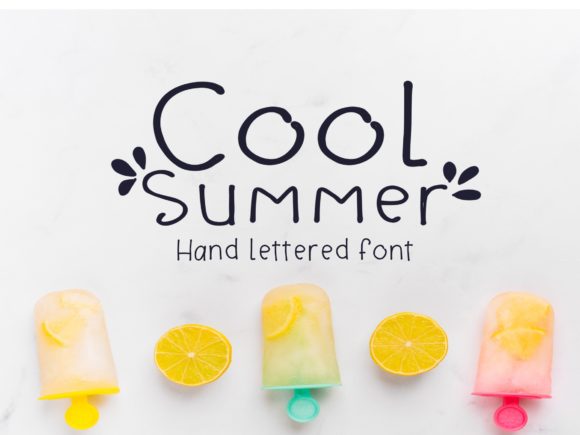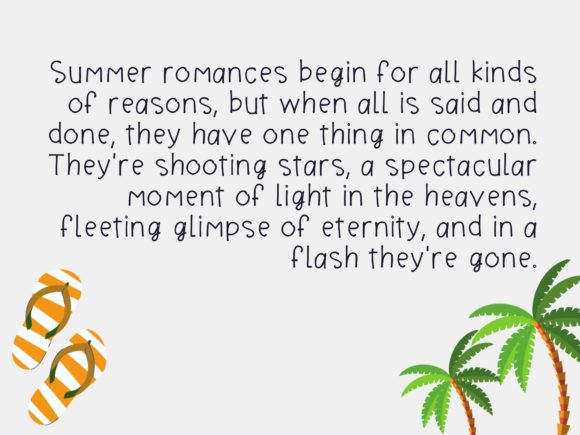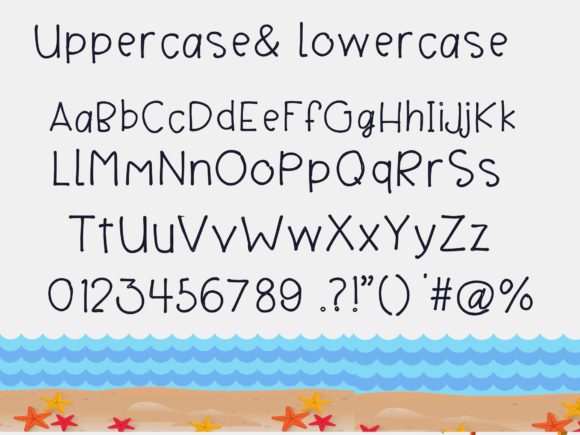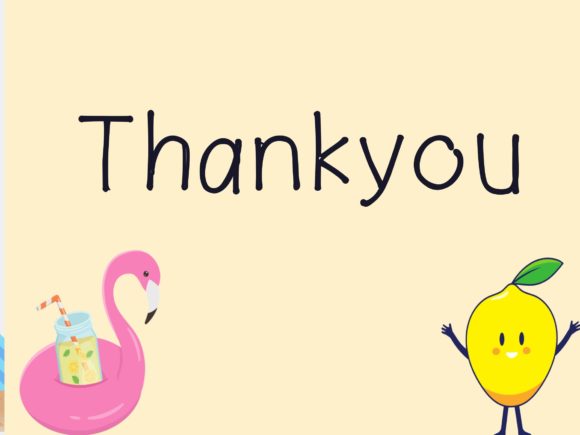
Cool Summer Font
About Cool Summer Font
Cool Summer is a versatile and stylish handwritten font that adds a touch of simplicity and intelligence to your designs. With its clean and modern look, it can be easily matched with a wide range of projects, making them stand out with its effortless charm.
The simplicity of Cool Summer’s letterforms gives it a contemporary and minimalist aesthetic, making it suitable for various design purposes. Whether you’re creating logos, branding materials, invitations, posters, or social media graphics, Cool Summer’s smart and uncluttered style will bring a fresh and modern feel to your projects.
The font’s legibility and clarity make it easy to read, ensuring that your message comes across effectively. Its well-crafted and balanced characters provide a sense of professionalism and sophistication, making it suitable for both casual and formal designs.
Cool Summer is a versatile font that adapts to different themes and styles. Its simplicity allows it to blend seamlessly with other design elements, while still adding a touch of uniqueness to your creations. It pairs well with both serif and sans-serif fonts, allowing for endless design possibilities.
Whether you’re designing for a corporate brand, a fashion blog, a wedding invitation, or a social media post, Cool Summer will elevate your designs with its smart and clean handwritten style. Its versatility and simplicity make it a reliable choice for various projects, ensuring that your creative ideas will stand out and leave a lasting impression.
Add Cool Summer to your font collection and explore the possibilities it offers. Experience how it enhances your creative ideas and brings a touch of simplicity and smartness to your designs.